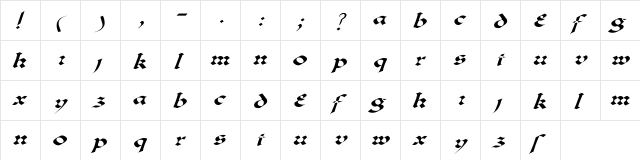
Lombardo Wd Italic Italic
Design Context for Lombardo Wd Italic Typeface
Lombardo Wd Italic takes a measured approach to typography — its balanced proportions and neutral character make it a reliable workhorse for both digital and print work. The dynamic lean of this cut emphasises speed and emphasis in any layout.
Pro Tip: Use Lombardo Wd Italic for emphasis, pull quotes, and subheadings where its slanted energy can add rhythm to the layout.